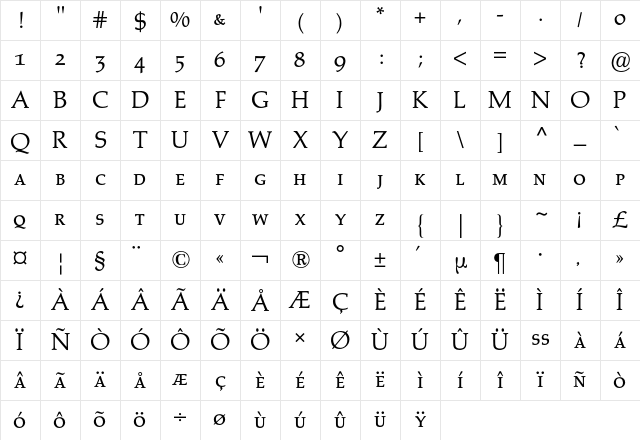
Palatino Expert BQ Regular
Palatino Expert BQ Family
Palatino Expert BQ Regular
Design Context for Palatino Expert BQ
Palatino Expert BQ is a composed and adaptable typeface that performs quietly and consistently across a wide range of design contexts.
Pro Tip: Use Palatino Expert BQ in both headline and body roles to test its range before committing to a single application.